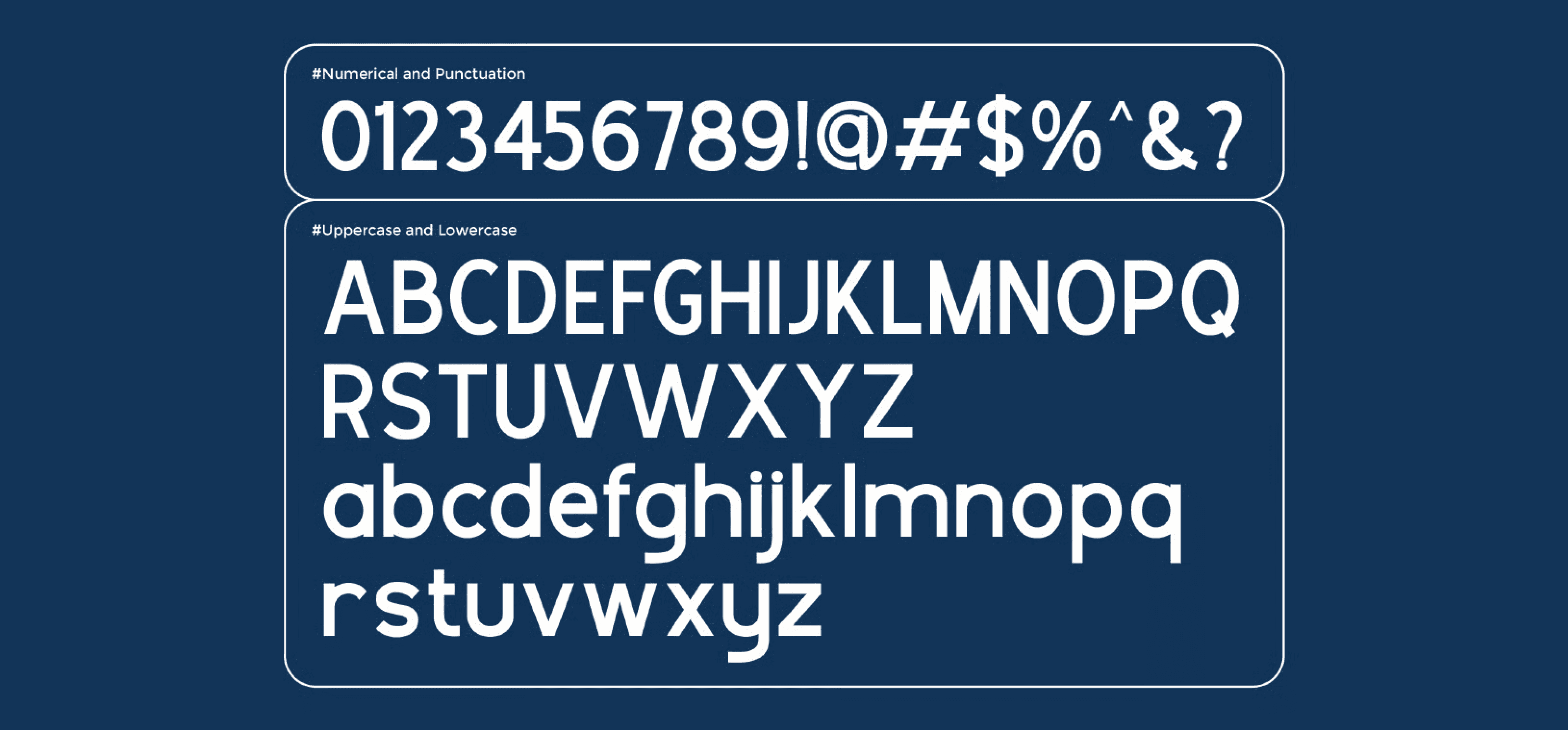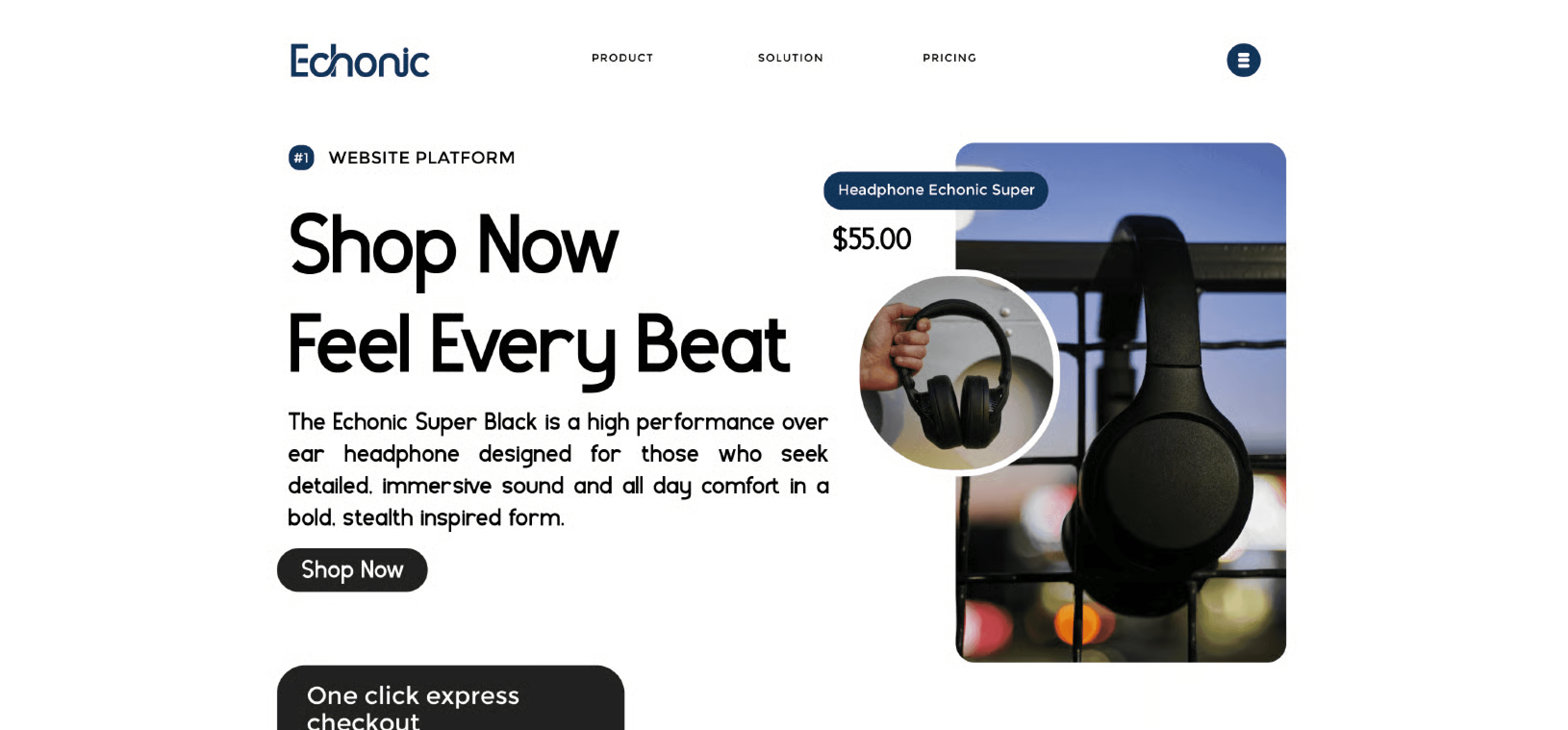
GLOOSY – Modern Corporate Sans SerifGLOOSY is a sleek and professional sans serif font designed to elevate your brand with clarity and style. Its smooth curves, clean lines, and modern proportions make it a perfect choice for any project that needs a confident and contemporary look. Whether you're building a strong brand identity or designing for tech and editorial spaces, GLOOSY delivers a polished, trustworthy impression.